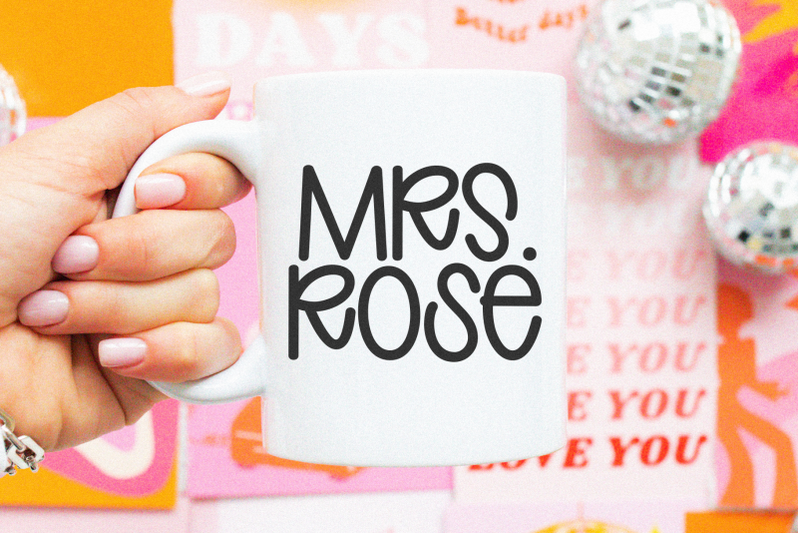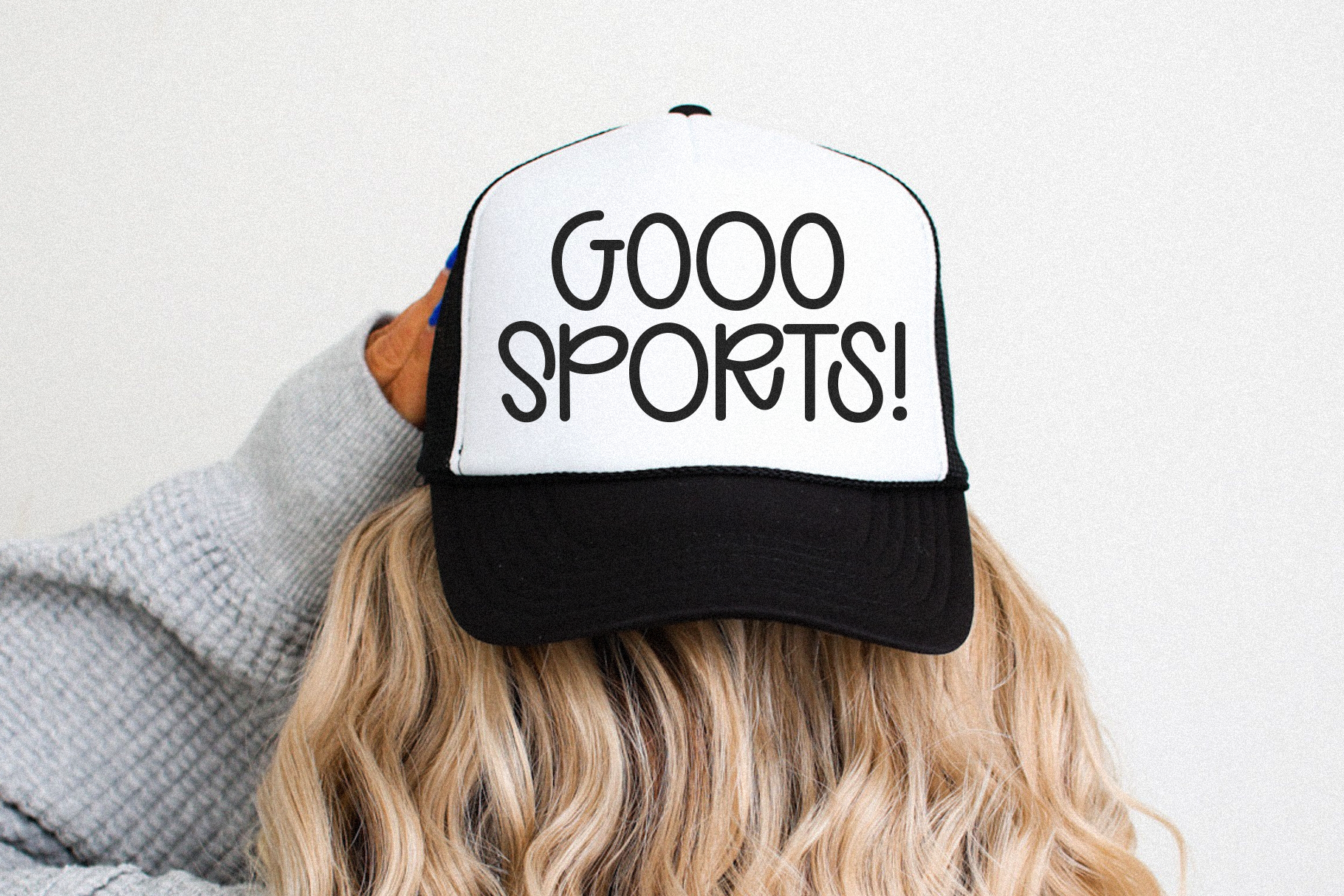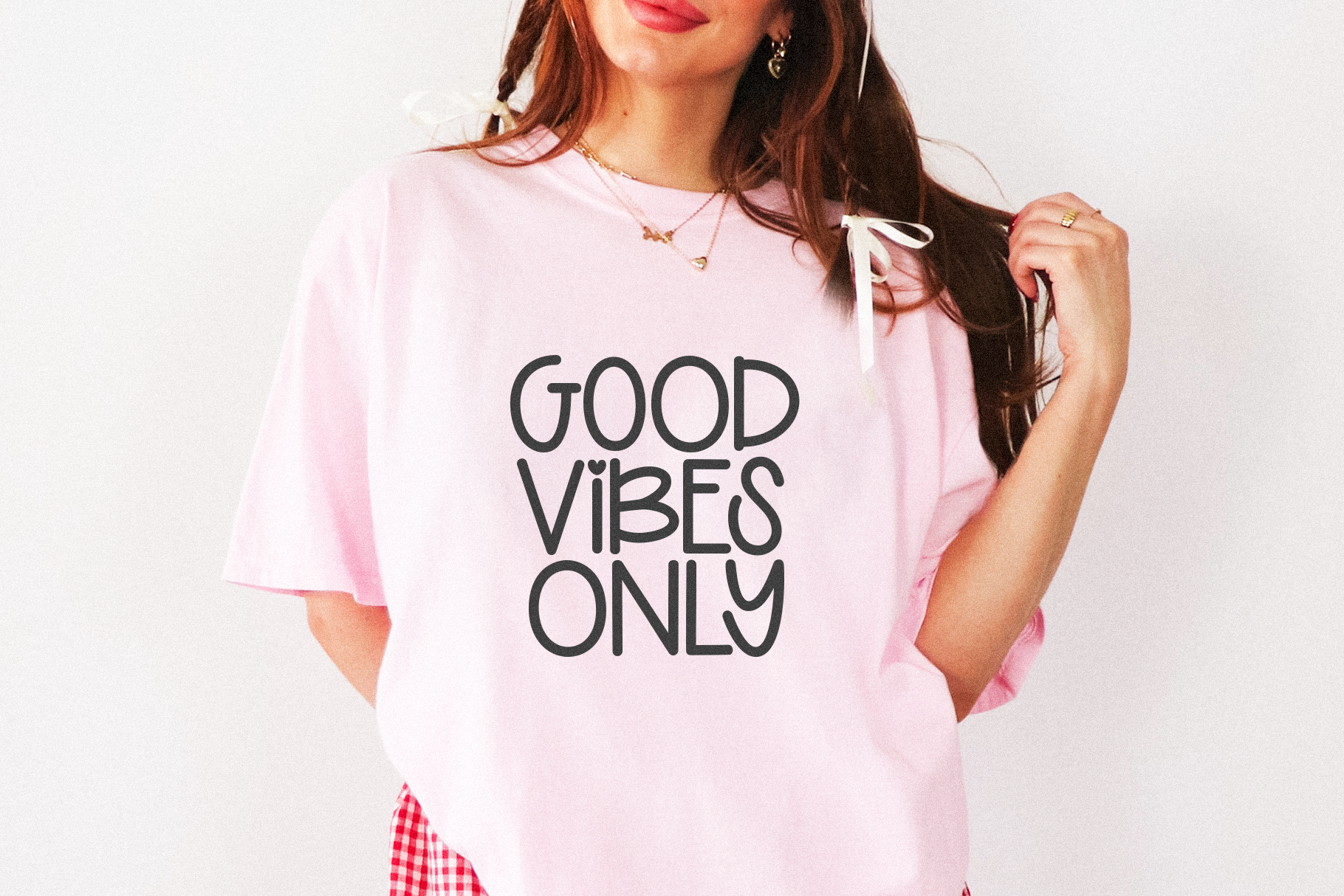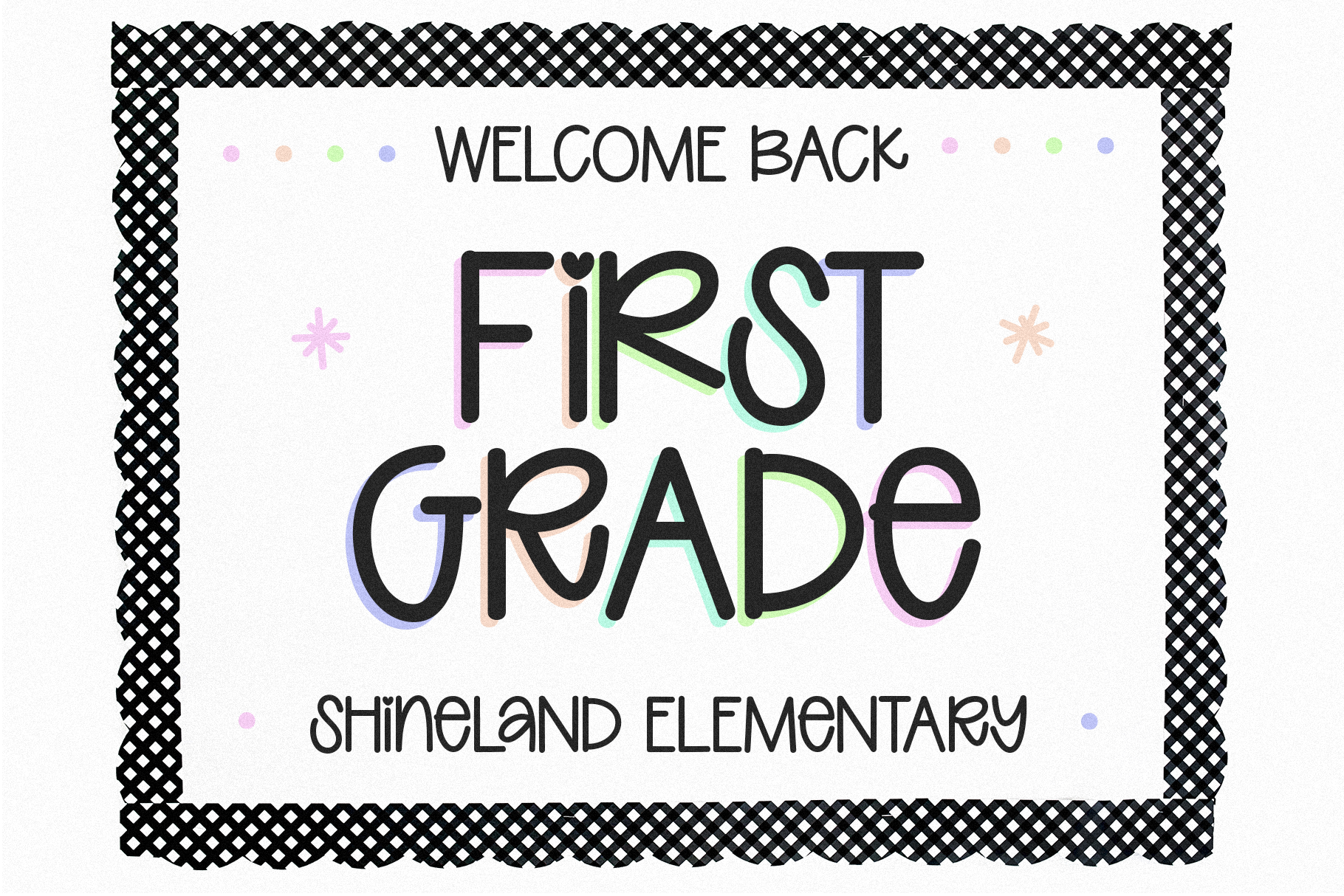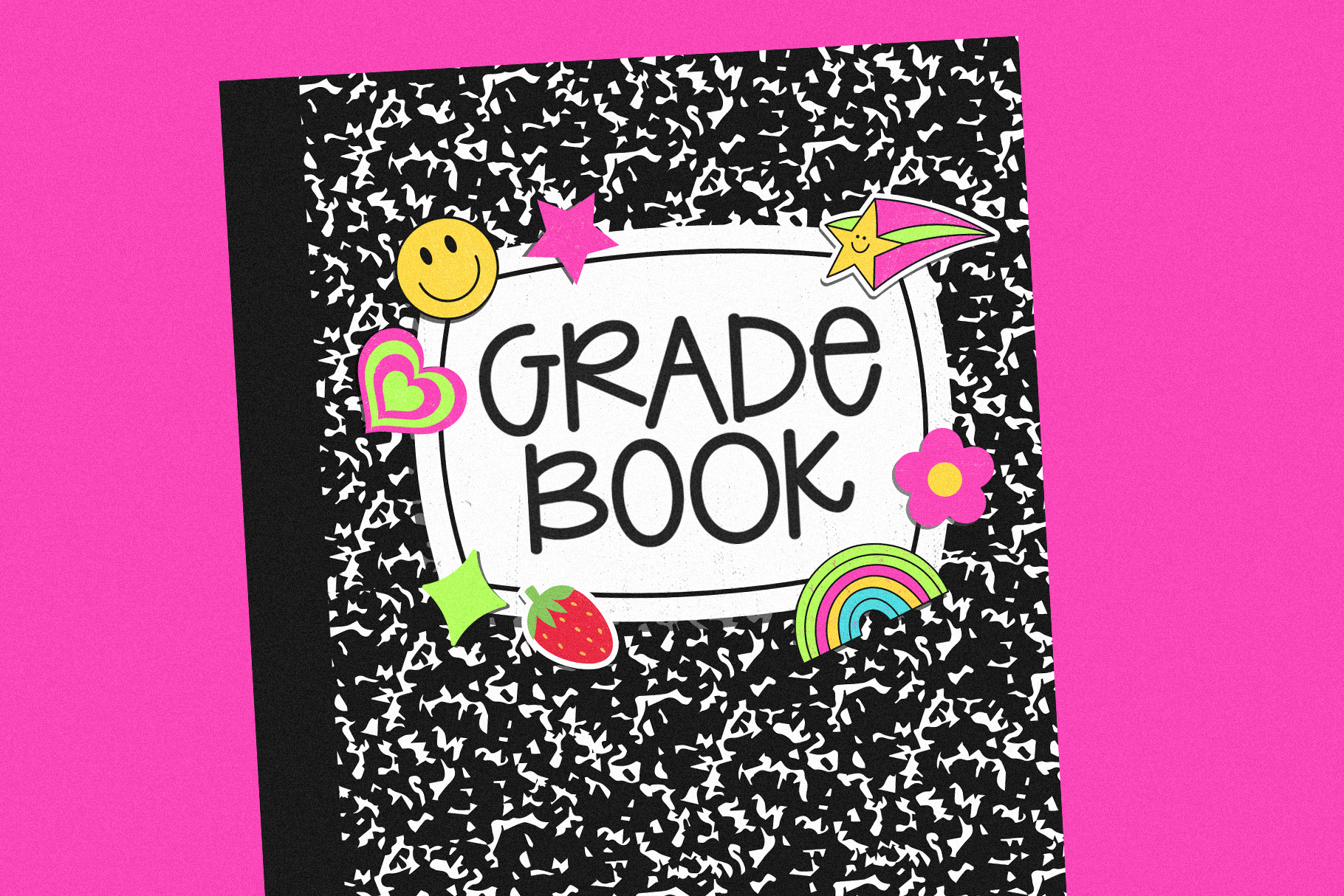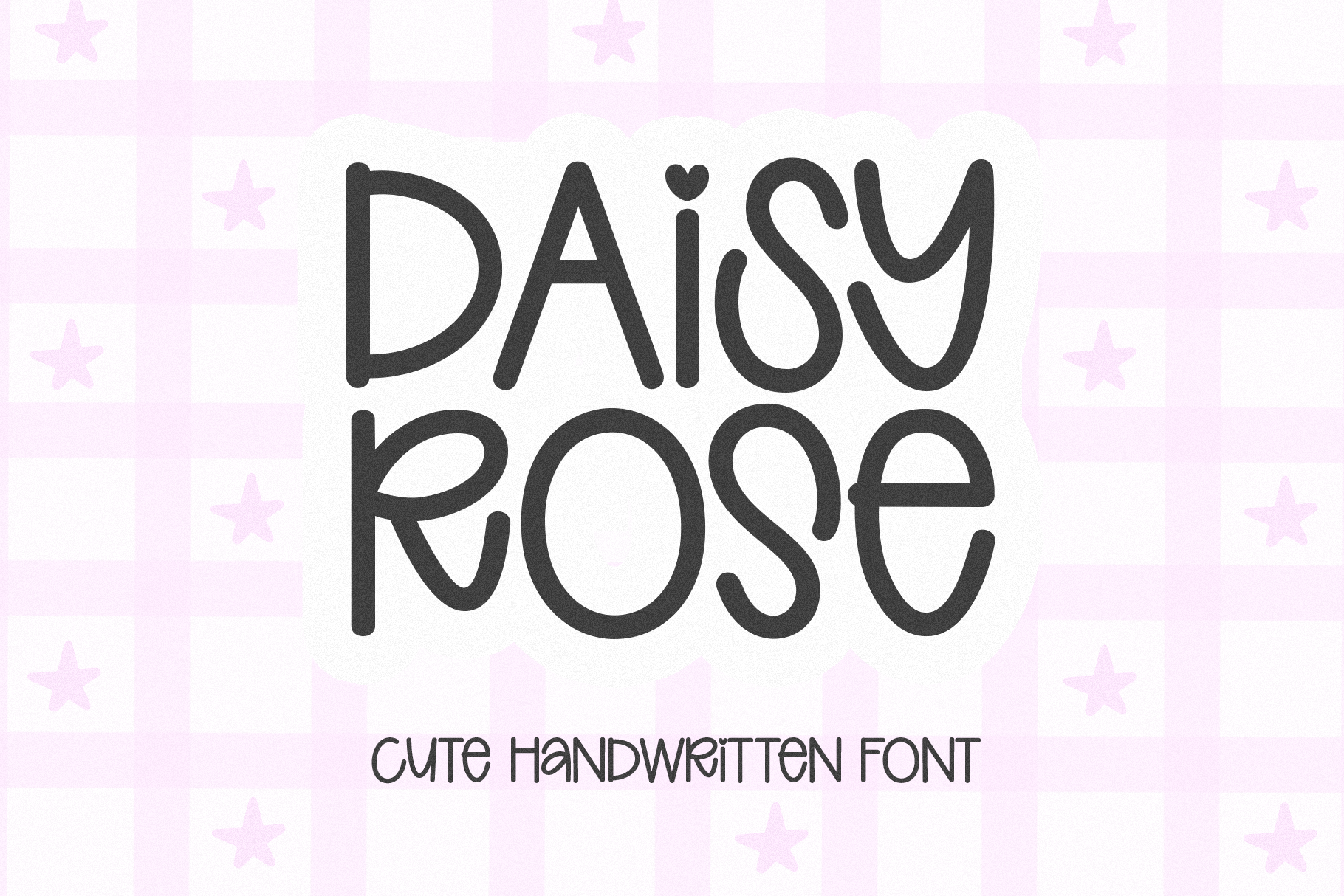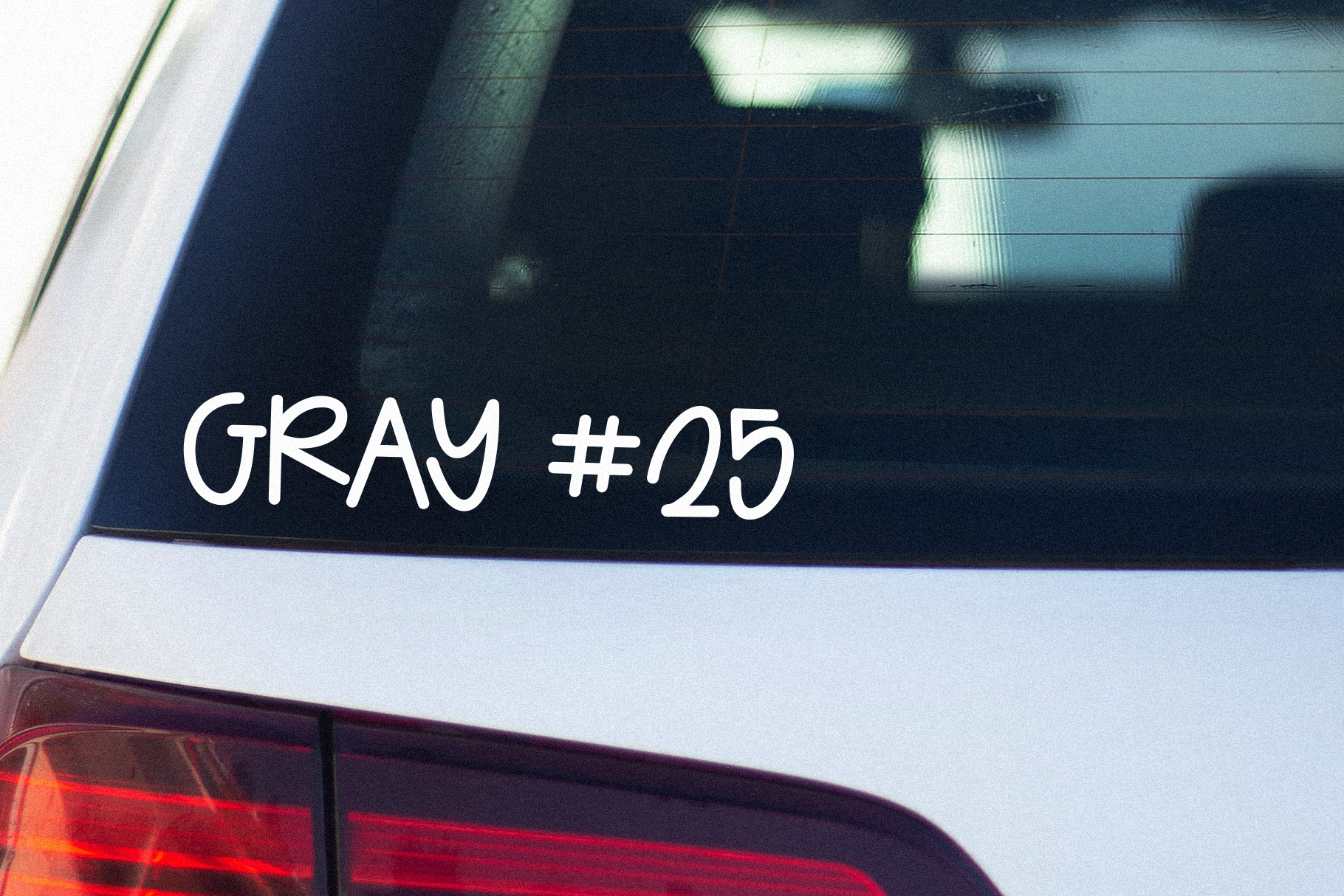
Daisy Rose - Cute Handwritten Font
Daisy Rose is a cute handwritten font.   Includes all capital letters and a mix of lowercase Mix and match capital and lowers for a fun look!   backslash key = regular lowercase i ^ key = heart   Daisy Rose is perfect for: retro designs, procreate, shirts, painted banners, stickers, logos, branding, greeting cards, Cricut projects, posters, teachers and more!   OTF/TTF   Thank you!